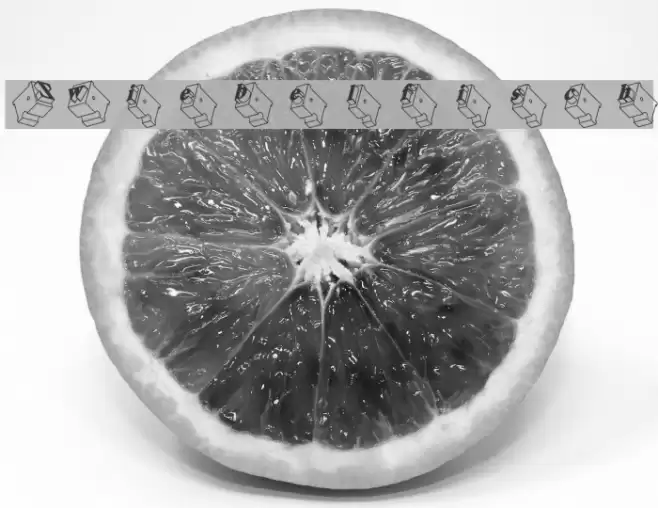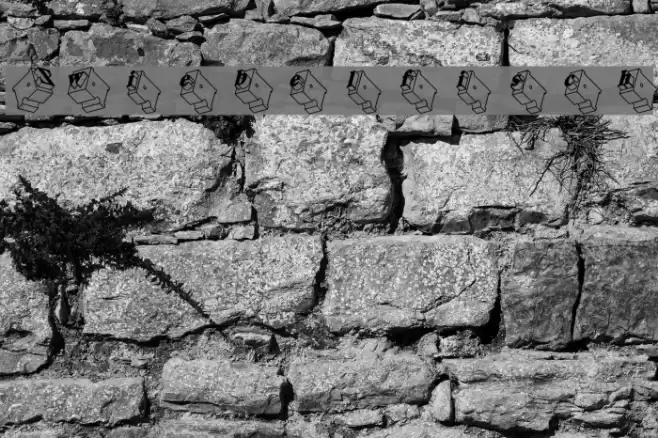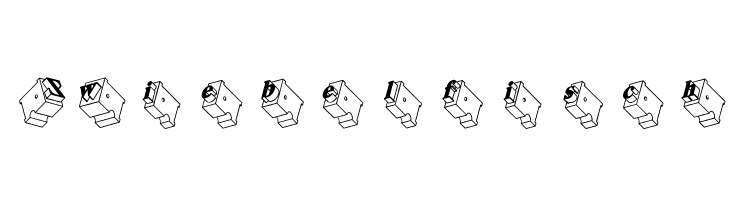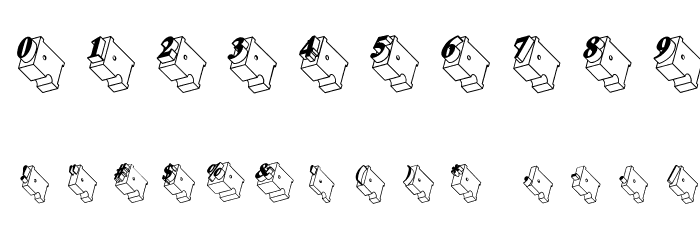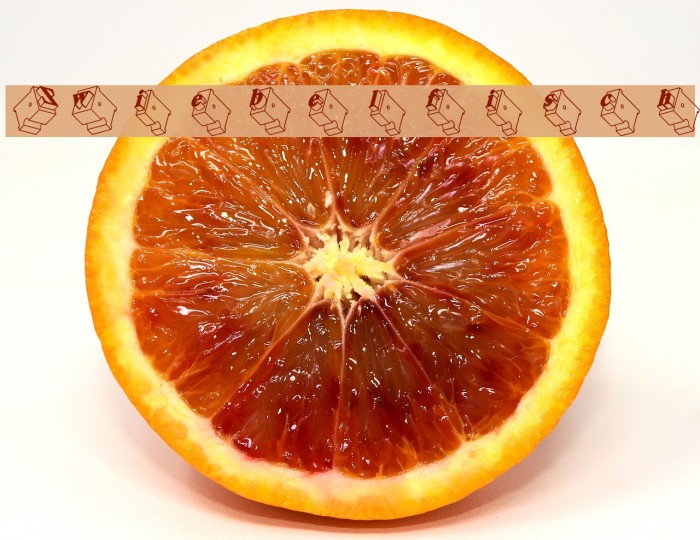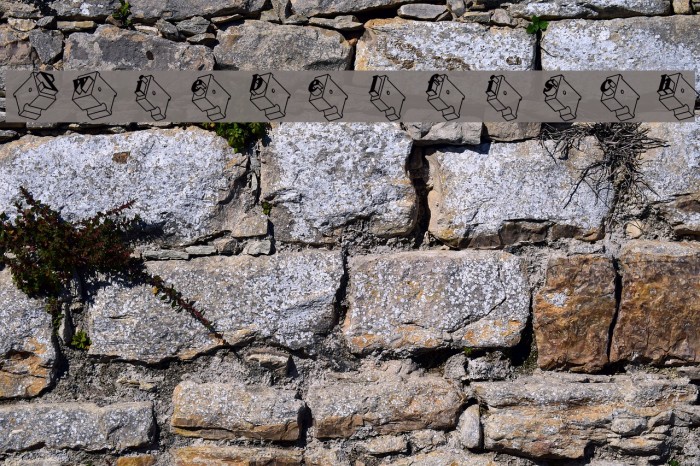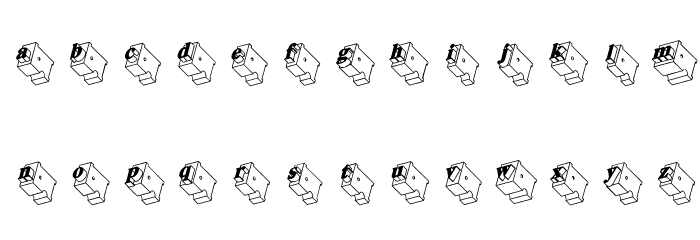
Zwiebelfisch Font
Zwiebelfisch Description
This font features a unique and playful 3D block style, where each character appears to be emerging from a cube. The letters are bold and have a decorative flair, with a slight slant that gives them a dynamic and lively appearance. The uppercase and lowercase letters maintain a consistent style, with the uppercase being slightly larger and more pronounced. Numbers and special characters follow the same design, ensuring uniformity across all elements. The font's distinct three-dimensional look makes it stand out, adding a creative touch to any design.
A bold, 3D block-style font with a playful and decorative appearance from Uncategorized fonts.
- Proposed Projects: Ideal for creative projects such as posters, logos, and headlines where a unique and eye-catching font is needed.